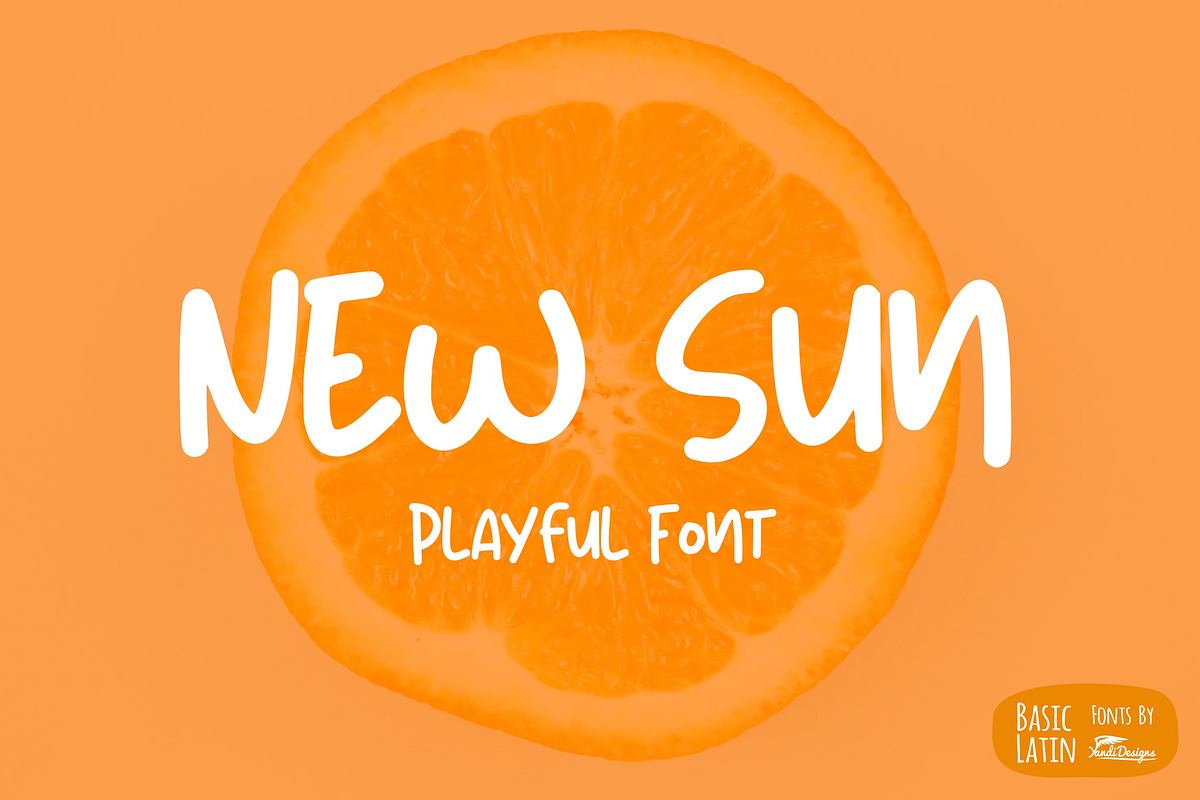
New Sun Playful Font Free Download is a cheerful and lively typeface that brings fun energy to your creative projects. With its bouncy letterforms and hand-drawn style, this font is perfect for children’s books, party invitations, branding for kid-friendly products, and colorful social media content. It adds personality and charm to any design, making it feel approachable and full of life.
Designed to be both playful and legible, New Sun strikes a perfect balance between whimsical creativity and practical usability. Whether you're working on packaging, posters, or YouTube thumbnails, this font will instantly brighten up your visuals.